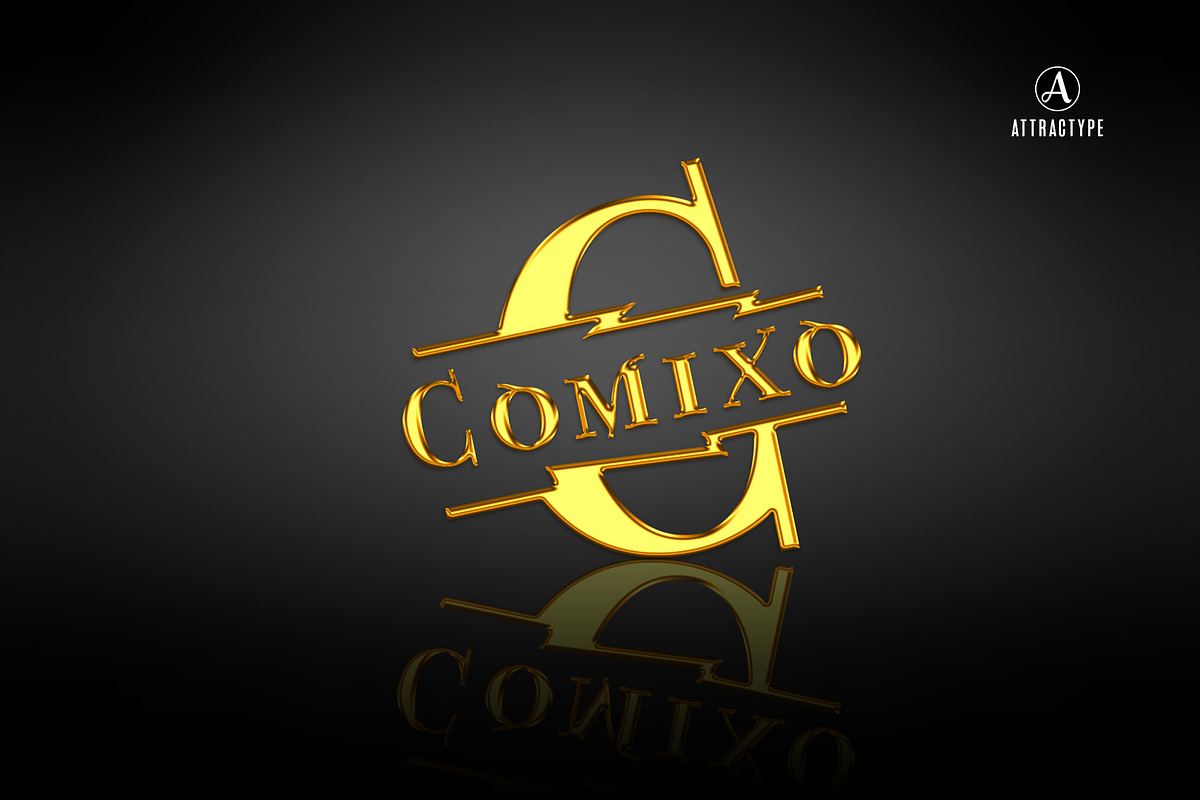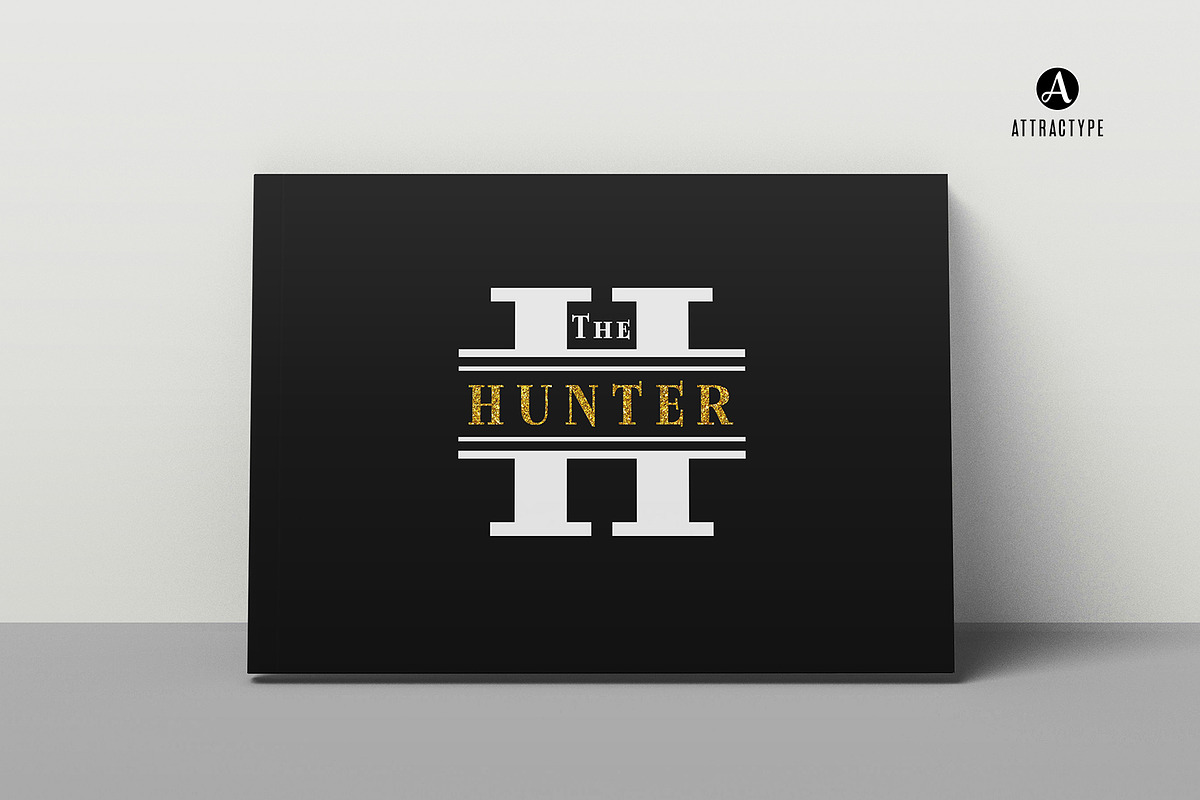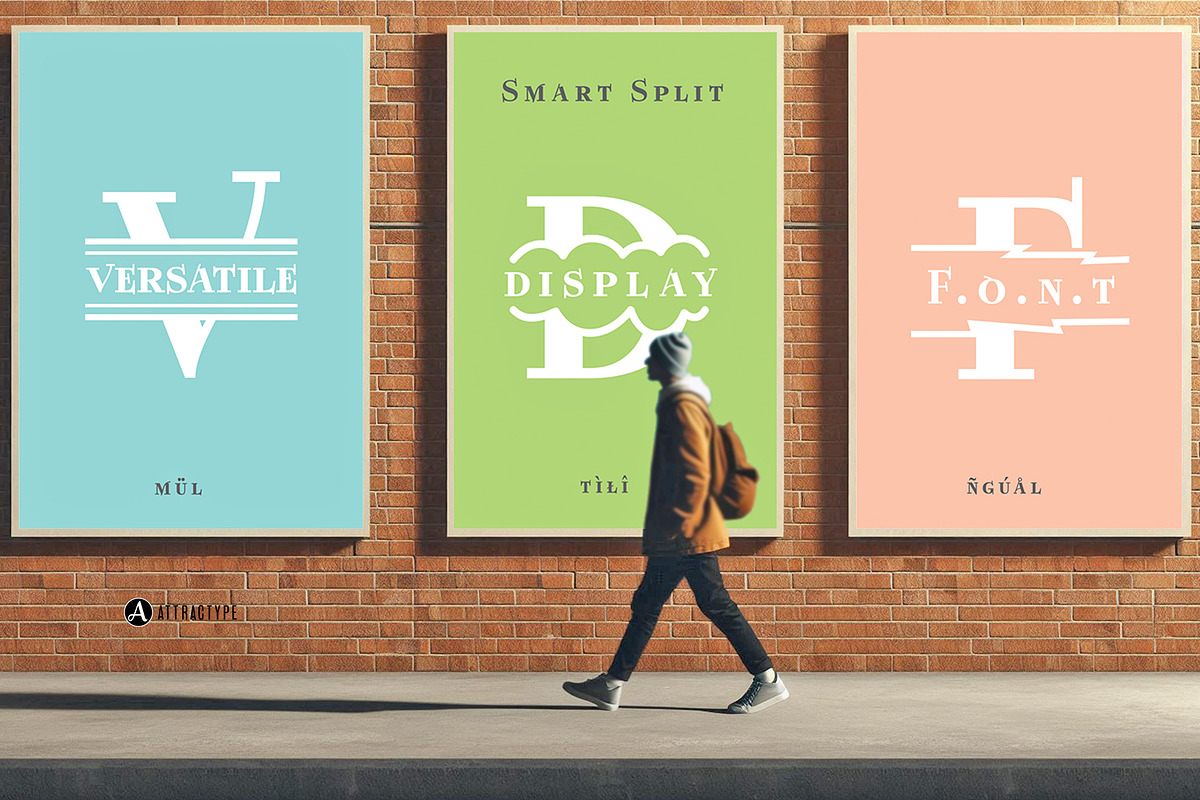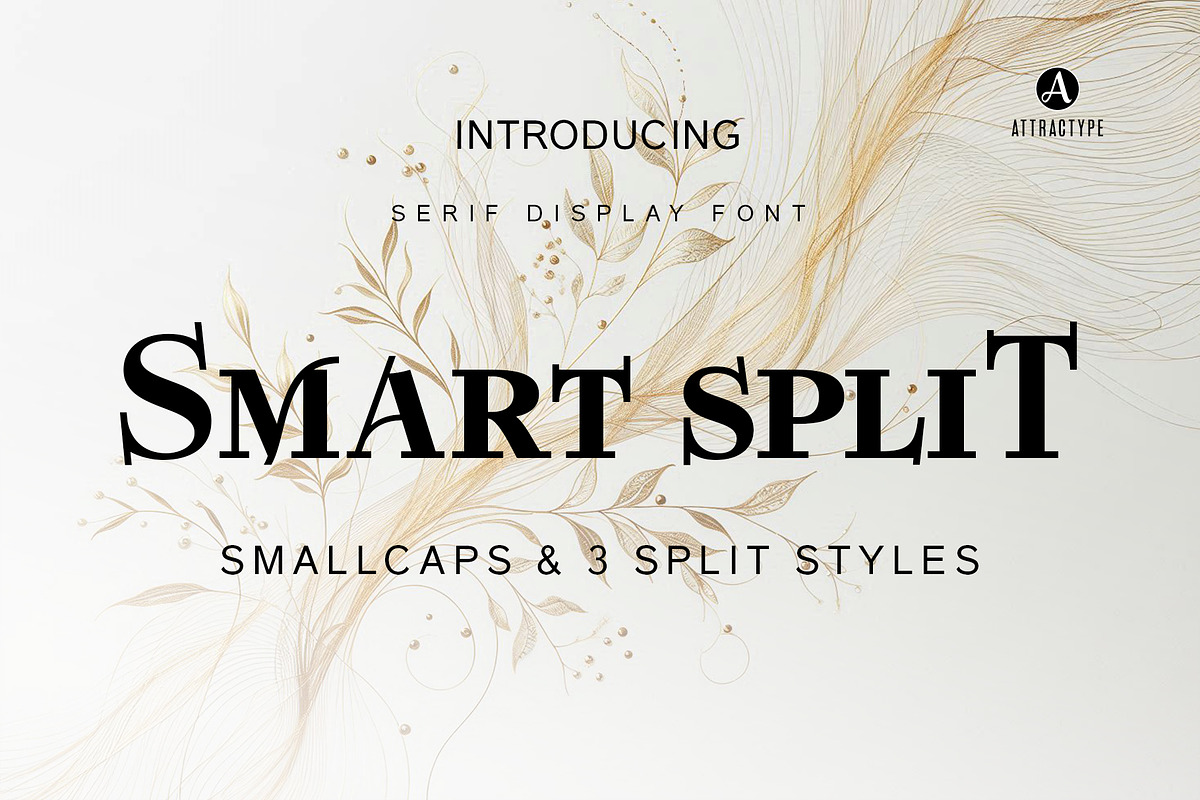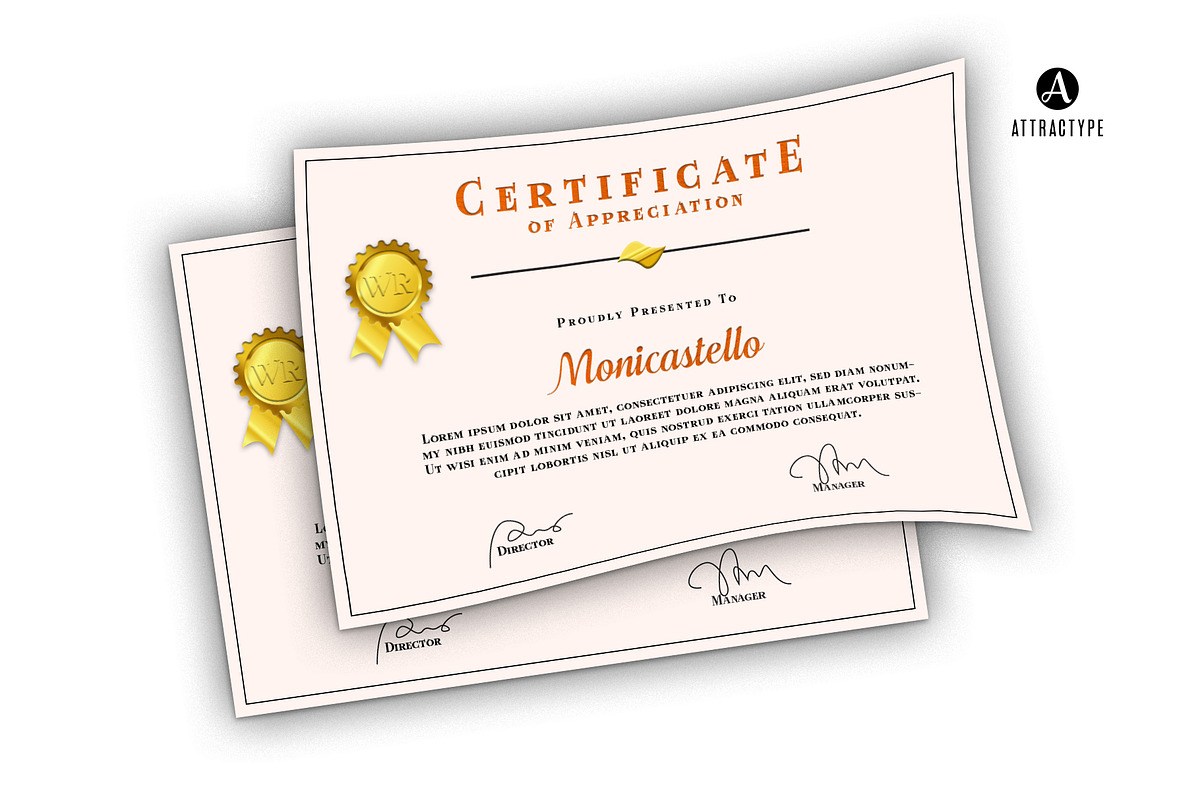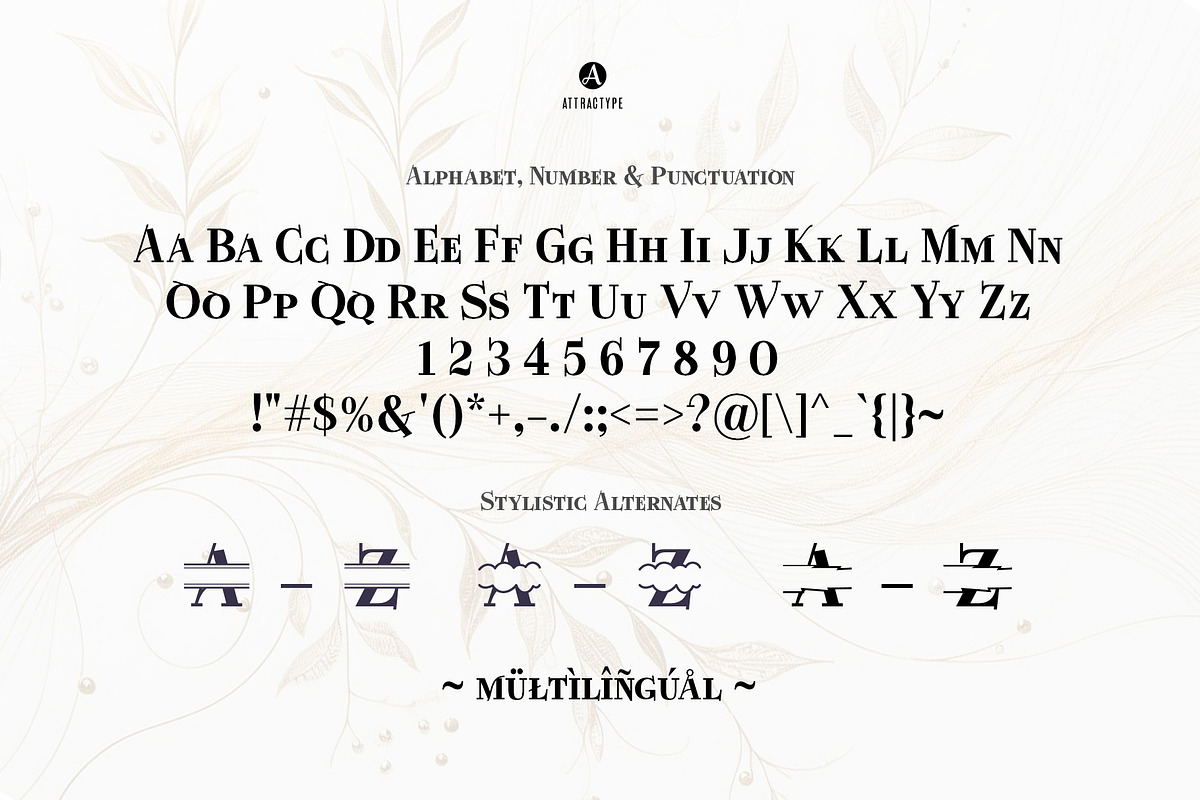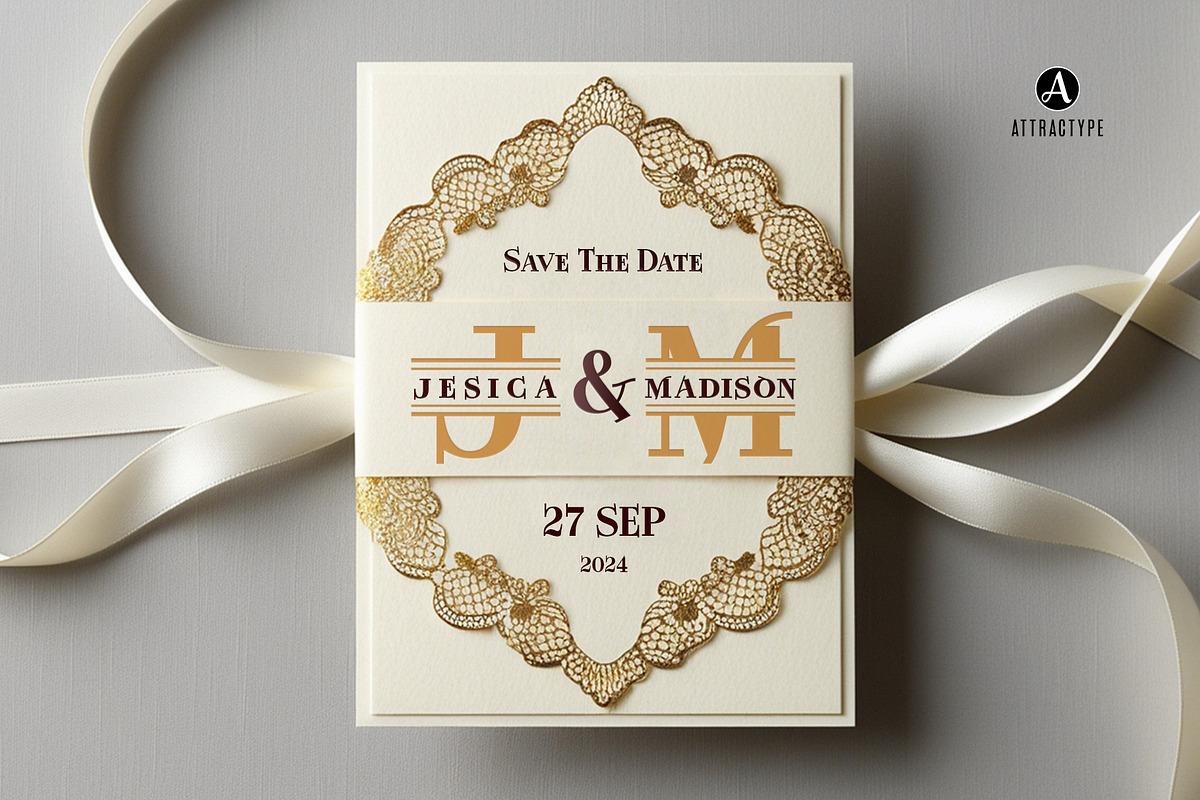
Smart Split - Bold Serif Smallcaps
This is a versatile serif font in terms of display. suitable for invitation design, posters, weddings, logos, business cards, book covers, certificates and others that require a bold and strong letter display.
The alphabet characters of this font are standard capital letters and smallcaps with the addition of stylistic features to the capital letters in the form of 3 split letter styles. To access it you must activate the opentype style 1/2/3 feature, in some applications you simply block one character then select the style that appears in the popup menu.